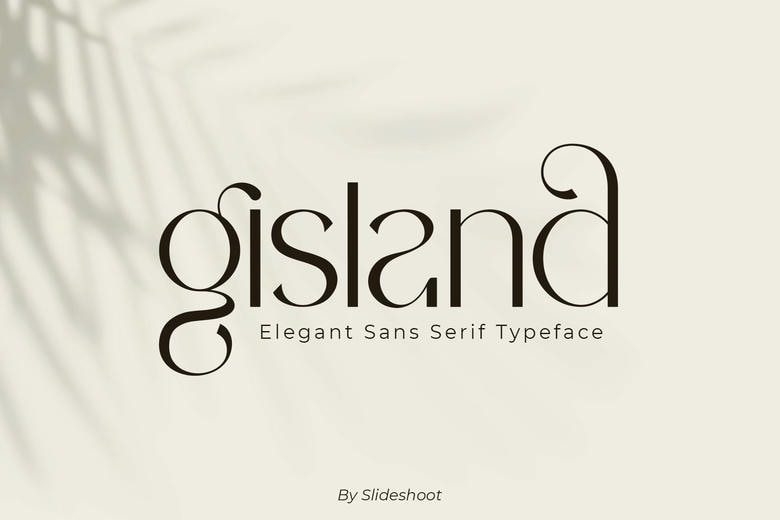
Gisland Font
Gisland Sans Serif is the new carefully balanced, smooth, elegant and stylish sans serif font type that can attract the attention and embellish any design. Perfect for invitations card designs, logo cards, movie title cards, movie title, business cards, book title, brand personal name and any other related designs.
Gisland Sans Serif is all about a clear, clean sans serif typeface that issmooth, elegant and fits seamlessly together. Due to its style and binding, this font is the best friend of any project.
Gisland Sans Serif Font